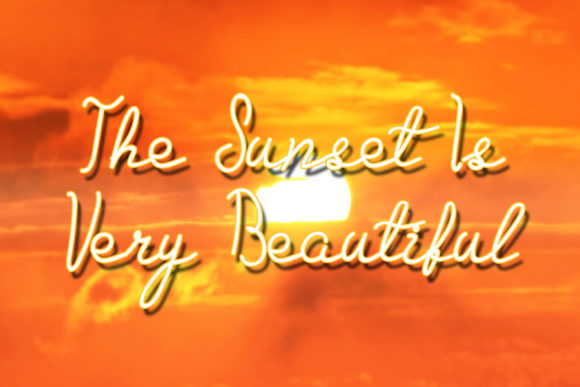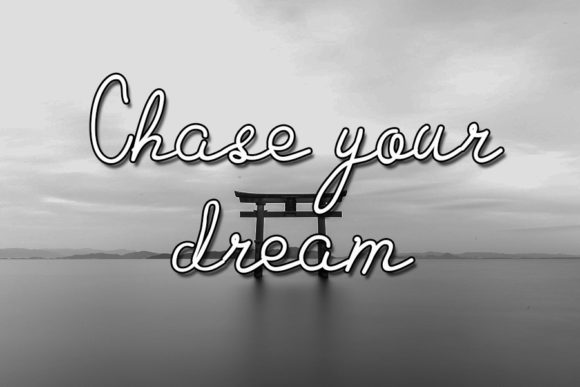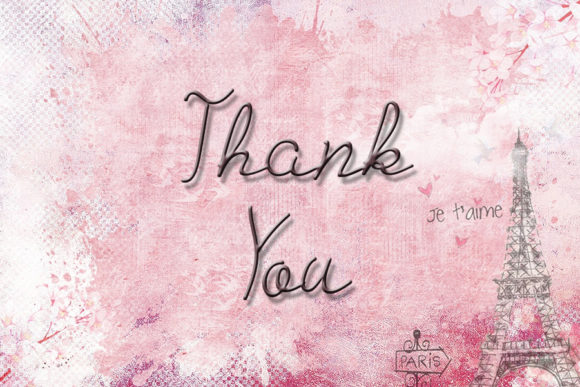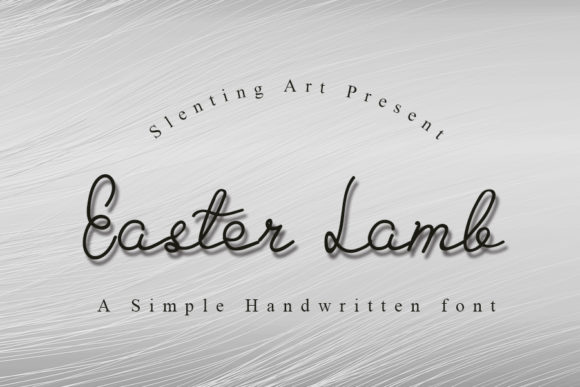
Easter Lamb Font: A Whimsical Script Font for Your Creative Projects
Are you looking for a font that can add a touch of whimsy and playfulness to your designs? Look no further than the Easter Lamb font. This charming script font is perfect for designers and crafters who want to create beautiful and eye-catching projects for Easter or any other occasion. In this article, we’ll take a closer look at the Easter Lamb font, its features, and how you can use it to elevate your creative projects.
What is Easter Lamb Font?
Easter Lamb is a whimsical script font with a relaxed theme, featuring a lovely style that’s perfect for a variety of design projects. The font has a unique and charming appearance that’s sure to capture the attention of your audience. Whether you’re creating Easter-themed designs, greeting cards, or social media graphics, this font is an incredibly valuable asset to have in your font library.
Key Features of Easter Lamb Font
• Whimsical and Playful Style: The Easter Lamb font has a whimsical and playful style that’s perfect for Easter-themed designs or any other project that requires a touch of fun and playfulness.
• Relaxed Theme: The font has a relaxed theme that’s perfect for creating designs that are calming and soothing.
• Lovely Style: The Easter Lamb font features a lovely style that’s sure to add a touch of elegance to your designs.
• Versatile: This font is versatile and can be used for a variety of design projects, including Easter-themed designs, greeting cards, social media graphics, and more.
Benefits of Using Easter Lamb Font
There are many benefits to using the Easter Lamb font in your design projects. Here are a few:
• Adds a Touch of Whimsy: The Easter Lamb font adds a touch of whimsy and playfulness to your designs, making them more eye-catching and engaging.
• Elevates Your Designs: This font has the potential to elevate your designs and make them more professional-looking.
• Saves Time: With the Easter Lamb font, you can create beautiful designs quickly and easily, saving you time and effort.
• Perfect for Easter-themed Designs: This font is perfect for Easter-themed designs, including Easter cards, Easter eggs, and more.
How to Use Easter Lamb Font
Using the Easter Lamb font is easy. Here are a few tips to get you started:
• Pair it with Other Fonts: Pair the Easter Lamb font with other fonts to create a unique and interesting design.
• Use it for Headings: Use the Easter Lamb font for headings and titles to add a touch of whimsy and playfulness to your designs.
• Experiment with Colors: Experiment with different colors to find the perfect combination for your design.
• Use it for Easter-themed Designs: Use the Easter Lamb font for Easter-themed designs, including Easter cards, Easter eggs, and more.
In conclusion, the Easter Lamb font is a whimsical script font that’s perfect for designers and crafters who want to create beautiful and eye-catching projects. With its unique and charming appearance, this font has the potential to elevate any creation and add a touch of whimsy and playfulness. Whether you’re creating Easter-themed designs or any other project, the Easter Lamb font is an incredibly valuable asset to have in your font library.
Here are a few tips for designers and crafters who want to get the most out of the Easter Lamb font:
• Experiment with Different Sizes: Experiment with different sizes to find the perfect size for your design.
• Use it for Digital and Print Designs: Use the Easter Lamb font for both digital and print designs, including social media graphics, greeting cards, and more.
• Pair it with Images: Pair the Easter Lamb font with images to create a visually appealing design.